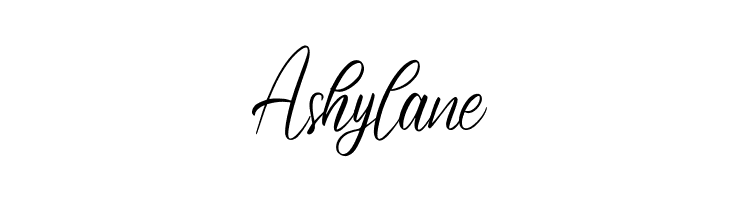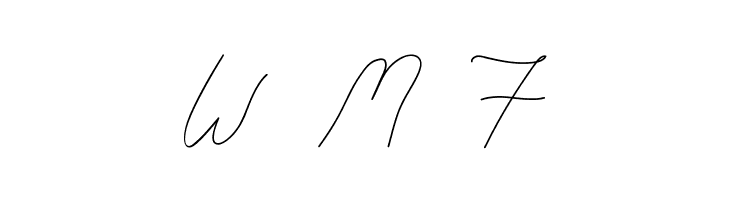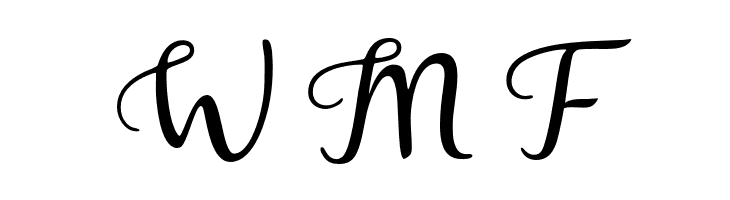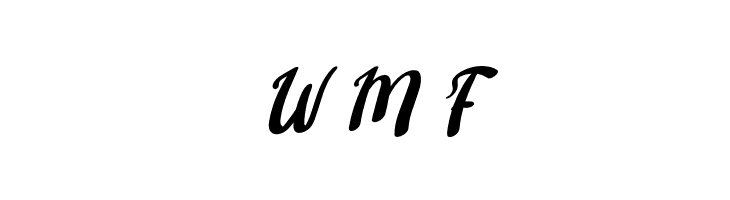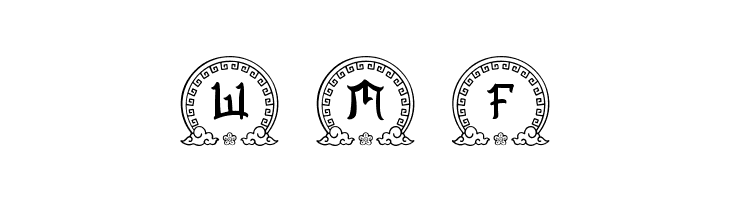
A graceful, flowing script font with a modern and elegant style.
A bold, expressive script font with flowing, cursive letters.
A playful and whimsical handwriting font with flowing, cursive-like strokes.
A playful, handwritten-style font with a casual and modern look.
A bold, flowing script font with a handwritten, artistic style.
A bold, italic script font with flowing, expressive curves.
A delicate and elegant script font with flowing, cursive letterforms.
A decorative font combining Chinese motifs with modern monogram style.
An elegant, flowing script font with a hand-drawn, calligraphic style.
A hand-drawn, irregular font with bold, jagged strokes and a quirky, organic feel.
A bold, brush-style font with expressive, hand-painted strokes.
A graceful and flowing script font with elegant, continuous strokes.
An elegant, flowing script font with smooth, continuous strokes.
A flowing, elegant script font with ornate uppercase and smooth lowercase letters.
An elegant script font with flowing, cursive lines and graceful curves.
A whimsical, handwritten font with elongated, flowing characters.
An elegant script font with flowing, interconnected letters and graceful swashes.
A flowing, cursive font with elegant loops and a handwritten style.
A bold, decorative font with playful cut-out patterns in each character.
A bold, distressed font with a rugged, textured appearance.
An elegant, flowing script font with ornate uppercase and smooth lowercase letters.
A charming handwritten script font with fluid, cursive letterforms.
A bold, angular blackletter-style font with dramatic strokes and intricate details.
A fluid, cursive font with an elegant and sophisticated style.
A graceful script font with flowing, cursive strokes and elegant character design.
An elegant script font with flowing, continuous strokes and graceful curves.
A lively and expressive script font with bold, flowing cursive letters.
A bold, Gothic-inspired font with sharp, angular lines and strong vertical strokes.
A playful, handwritten font with bold, rounded characters.
A bold, dynamic script font with a handwritten feel.
A dynamic brush script font with bold, expressive strokes.
A playful, bold font with rounded characters and a whimsical style.